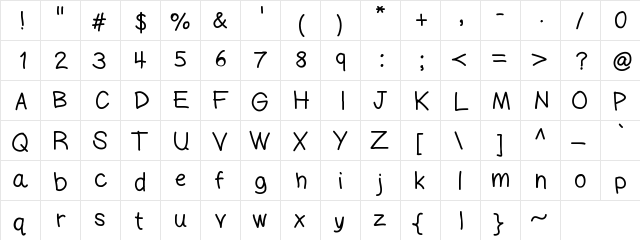
KBDARLINGMG Medium
Design Context for KBDARLINGMG Typeface
KBDARLINGMG is a composed and adaptable typeface that performs quietly and consistently across a wide range of design contexts.